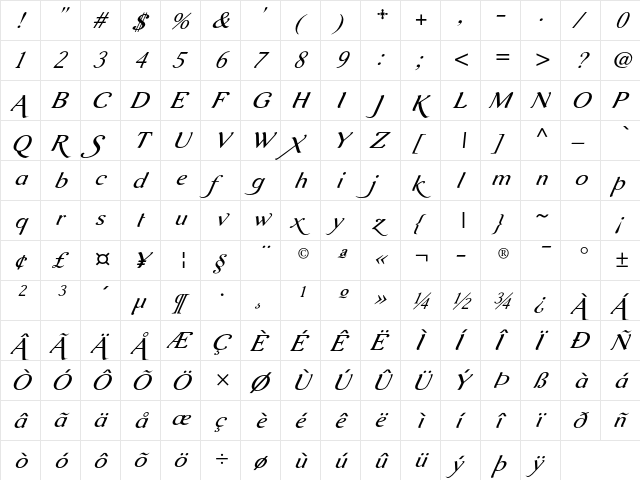
Aurelis ADF Script No2 Std Italic
| Foundry | Arkandis Digital Foundry. |
| Designer | Hirwen HARENDAL |
Design Context for Aurelis ADF Script No2 Std Typeface
Aurelis ADF Script No2 Std brings a calligraphic fluidity to the page — its connecting strokes and expressive curves give it an unmistakably human quality.
Font Pairing: Combine Aurelis ADF Script No2 Std with a simple geometric sans for maximum contrast — the tension between flowing curves and clean structure is a classic typographic pairing.
Pro Tip: Pair Aurelis ADF Script No2 Std with a clean sans-serif for supporting text. The contrast between fluid script and geometric structure creates an elegant typographic hierarchy.